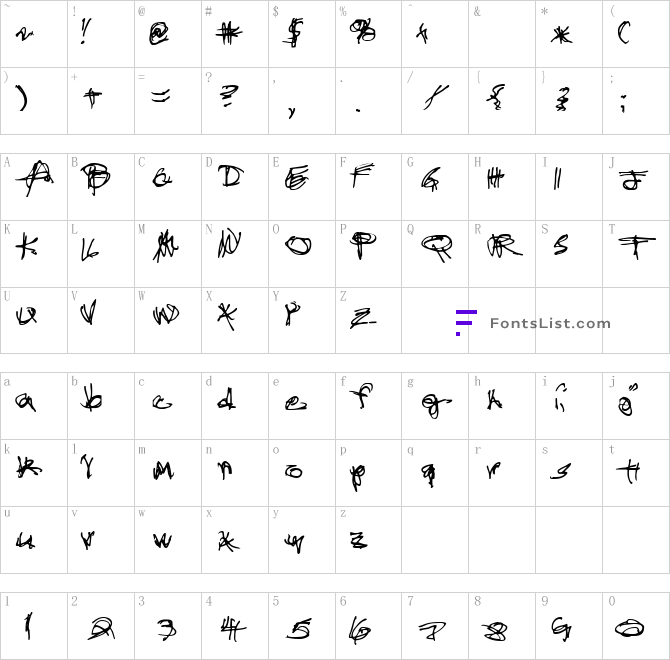
- Font Name:Administrator Password
Administrator-Password.ttf is a very beautiful artistic font, Administrator-Password.ttf is widely used in the design and printing of various books and pictures,Administrator-Password.ttf has a strong visual impact,Administrator-Password.ttf is a commonly used font in newspapers, magazines and books, and is used in posters, e-commerce Poster design, store design, logo design, font design and other fields.Administrator-Password.